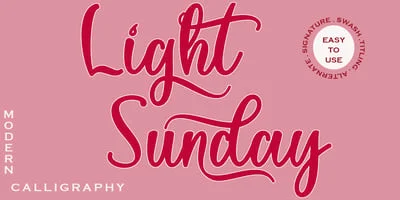
Light Sunday Font
Light Sunday Font is perfect for relaxing lifestyle branding, peaceful weekend marketing, serene spa signage, gentle morning publications, tranquil cafe designs, restful retreat promotions, and leisurely Sunday campaigns.
What makes Light Sunday Font exciting is its gentle serenity and peaceful relaxation, featuring soft letterforms that capture the essence of Sunday mornings while delivering calming visual comfort and leisurely authenticity.
The Light Sunday Font family includes Ultra Light, Light, Regular, Medium, Bold, and Heavy weights, plus gentle variants and peaceful alternates that enhance the font's tranquil character and relaxation possibilities.
Light Sunday Font embodies the peaceful essence of Sunday relaxation and the gentle beauty of unhurried moments through serene typography design. This calming typeface captures the soft tranquility of Sunday mornings and the restful spirit of weekend leisure, creating a peaceful visual language that speaks to individuals and families who value slow living, restful moments, and the rejuvenating power of gentle relaxation. The font's serene character and peaceful appearance make it perfect for wellness brands, leisure companies, and lifestyle businesses that want to communicate tranquility, comfort, and the soothing appeal of Sunday serenity.
Wellness organizations and leisure brands consistently select Light Sunday Font for projects that require authentic relaxation credibility and peaceful visual appeal. The typeface's gentle construction and serene personality make it exceptionally effective for spas, weekend retreat centers, and lifestyle companies where peaceful relaxation and Sunday tranquility are paramount. Each character has been designed with calming precision to ensure maximum serenity across all wellness applications and peaceful environments.
The relaxation advantages of Light Sunday Font extend beyond its peaceful appeal to include practical functionality for diverse leisure applications. The font maintains excellent readability in calming settings while delivering the distinctive character that creates meaningful restful experiences and connects with audiences seeking authentic Sunday peace. Its comprehensive character set includes wellness symbols and peaceful elements that make it particularly suitable for relaxation documentation and leisurely communication.
Spas, weekend retreats, and lifestyle brands frequently choose Light Sunday Font because of its ability to instantly convey peaceful authenticity and gentle sophistication. The typeface's serene aesthetic helps establish trust in wellness markets while appealing to customers who value restful living, Sunday relaxation, and the rejuvenating experiences that come from authentic peaceful moments and gentle weekend leisure.